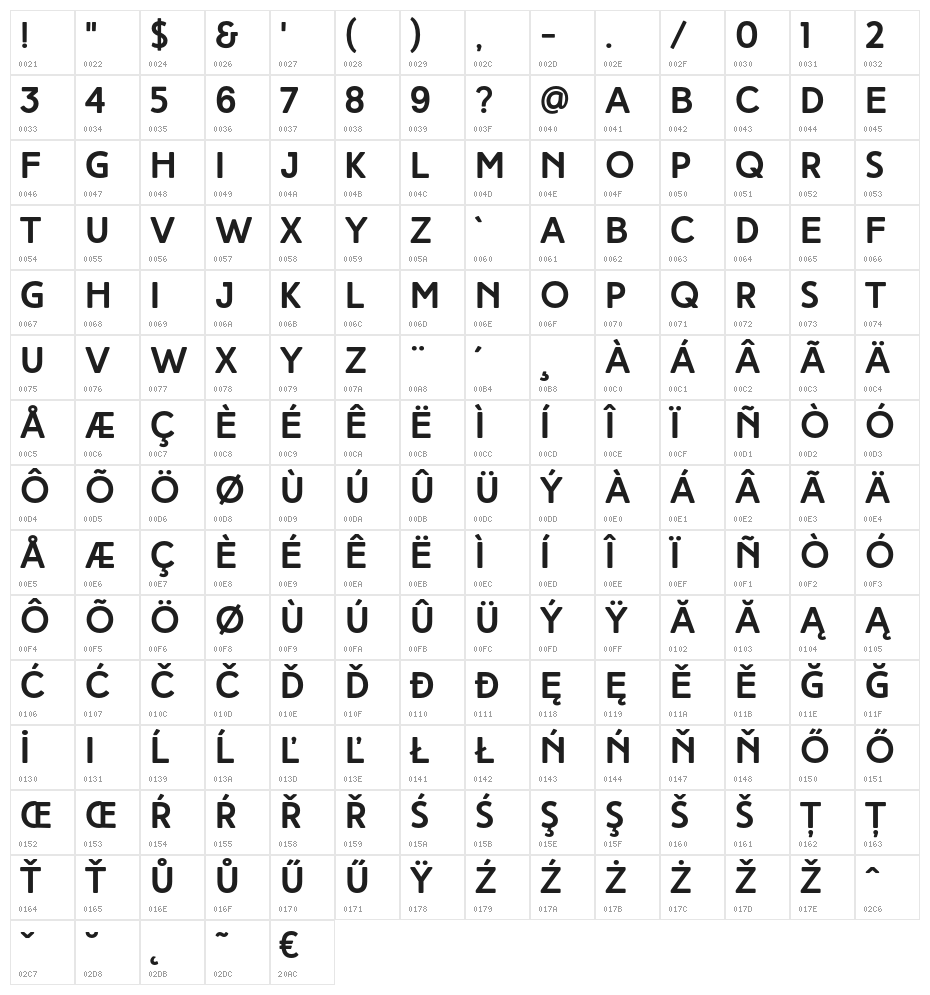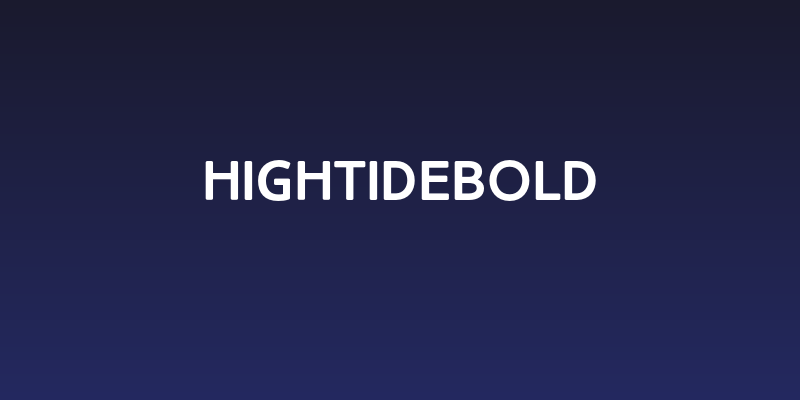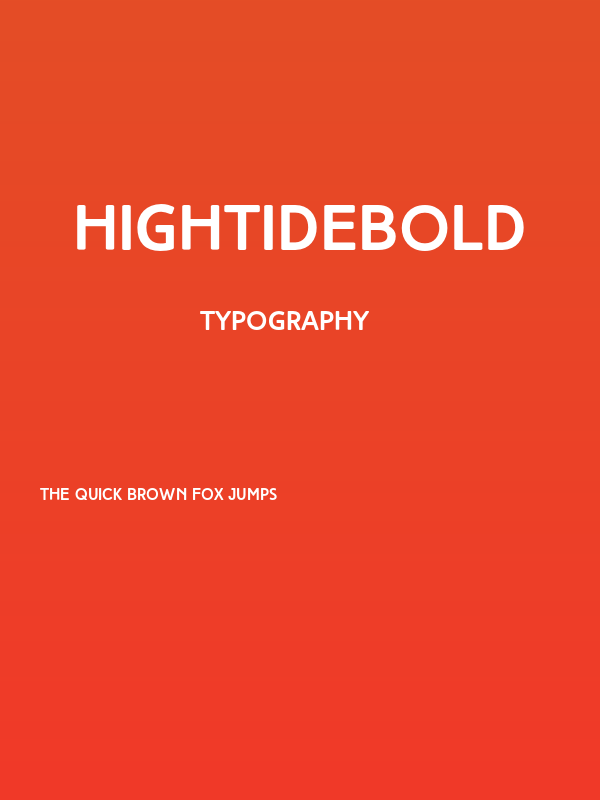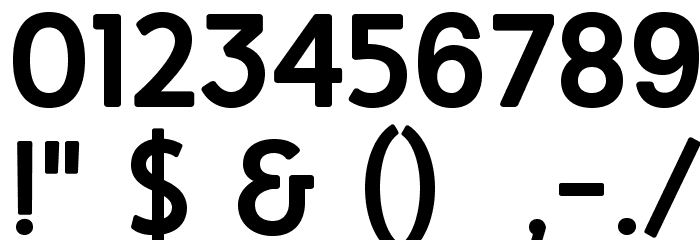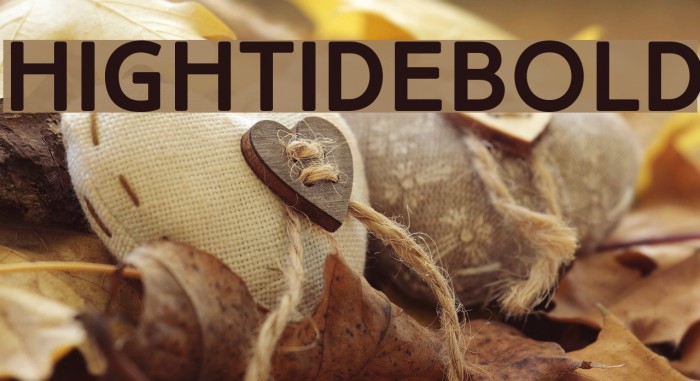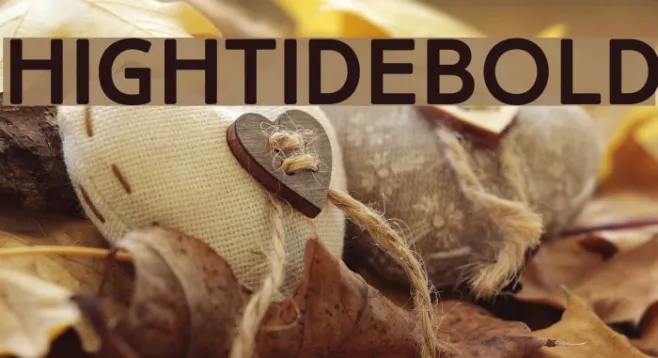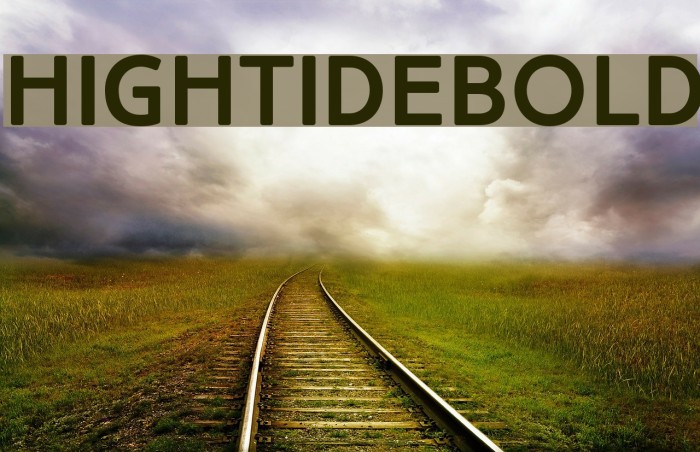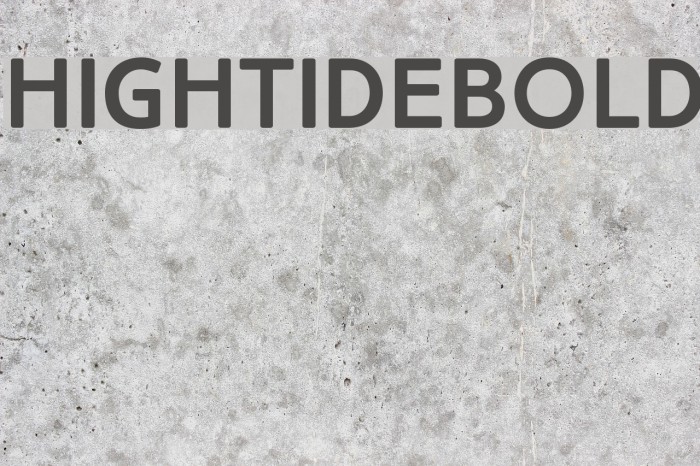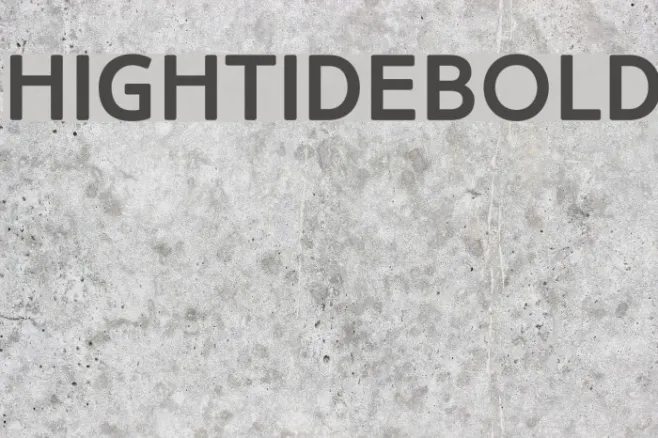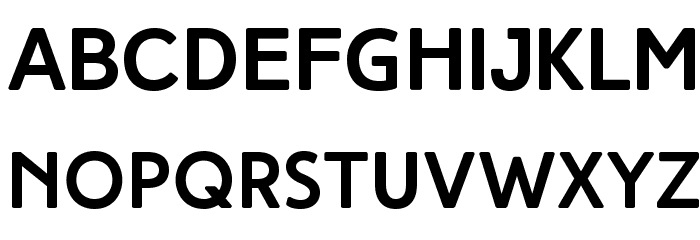
HighTideBold Font
HighTideBold Description
This typeface is characterized by its bold and clean lines, offering a modern and straightforward appearance. The letters are evenly spaced with a consistent stroke width, providing a balanced and harmonious look. The uppercase and lowercase letters maintain a uniform height, contributing to its readability and versatility. The numerals are clear and distinct, matching the overall style of the alphabet. Special characters are well-integrated, ensuring they complement the primary letterforms. This font is ideal for projects that require a strong and impactful visual presence.
| Proposed Projects | Ideal for branding, headlines, posters, and digital media where a strong visual impact is needed. |